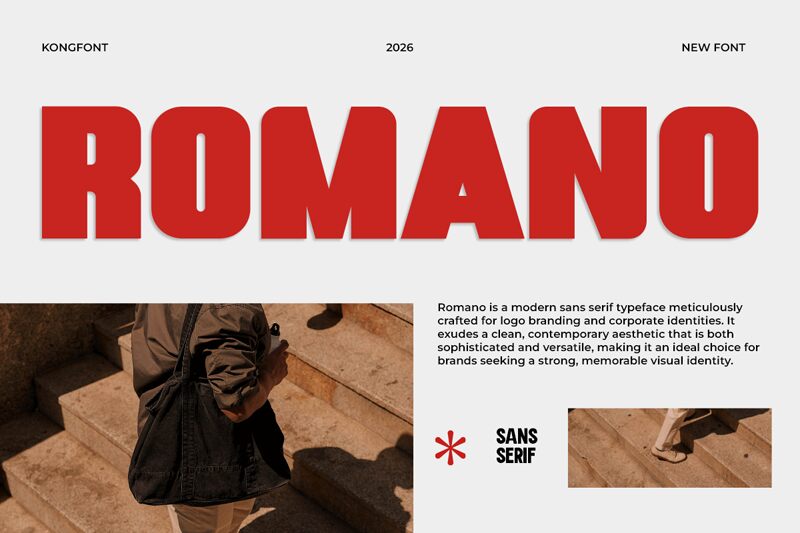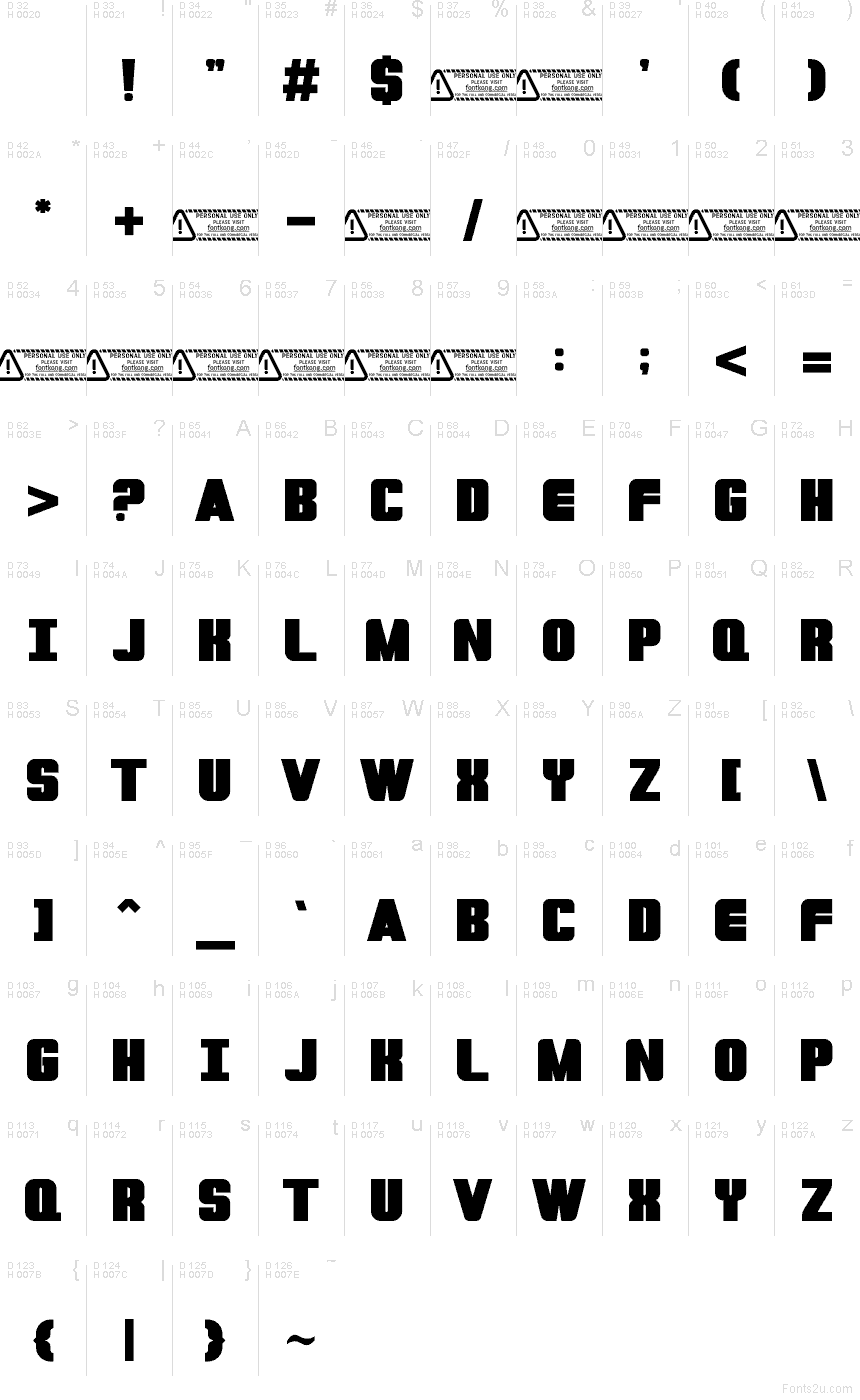
Romano, by Kong Font, is a free ultra-bold caps sans serif with a blunt, posterish presence. The letters are built from thick, almost monolithic shapes, but the deep curves and sharp inner cuts keep it from feeling static, giving the alphabet a stark, slightly cinematic rhythm.
This free font fits branding, music posters, sports graphics, title cards, packaging, and cover lines where a few words need real mass on the page. It also suits monograms and short headlines, because the caps lock together into dark, emphatic blocks that carry a strong silhouette even before color or imagery does the work.